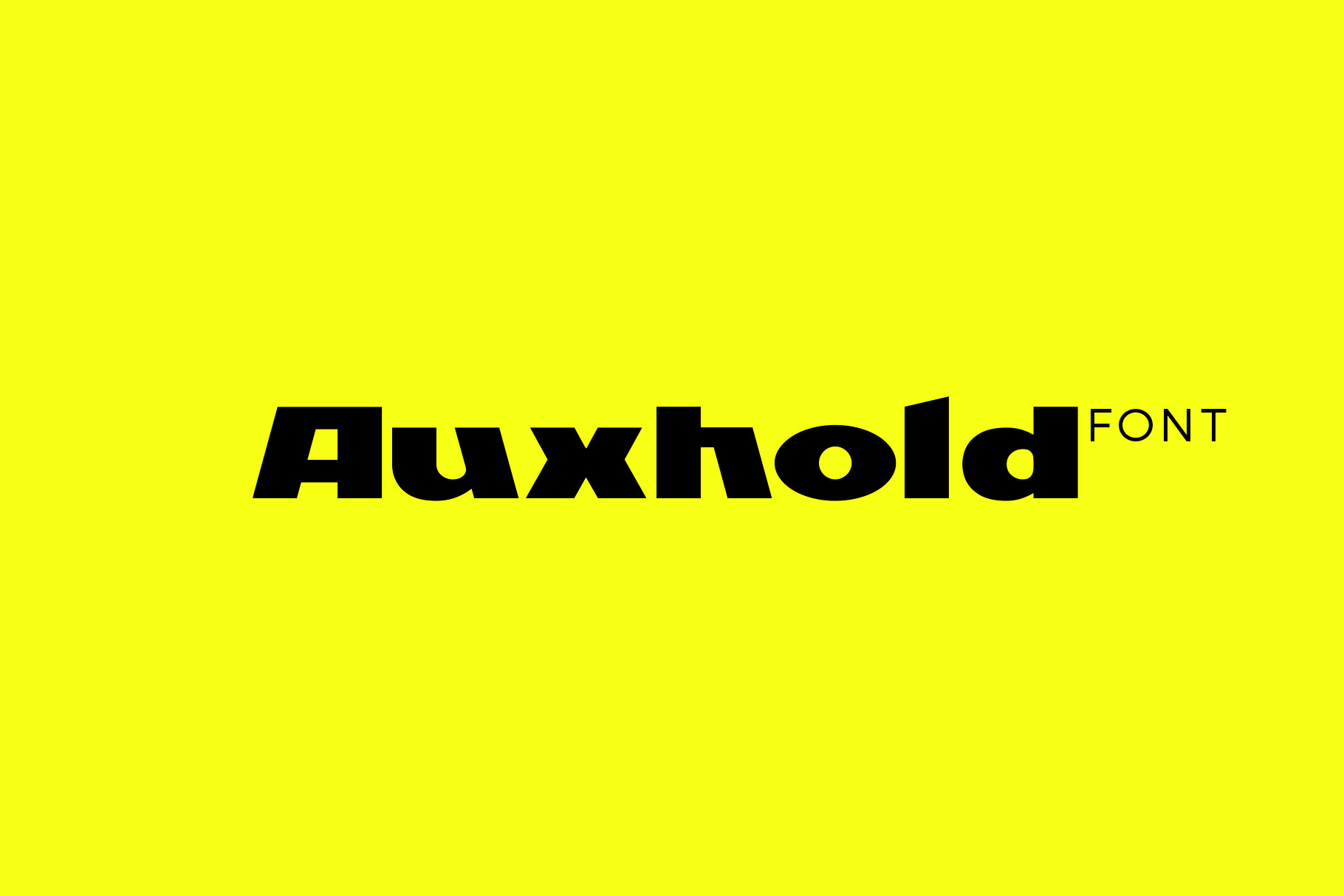
Auxhold
Auxhold is a sans serif font family published by Sentavio.
Auxhold Font is authentic classic font with some design solutions, which make it looking unique and unusual. It is good looking as header and as text both (also as capital letters).